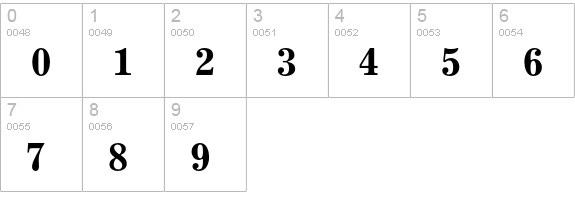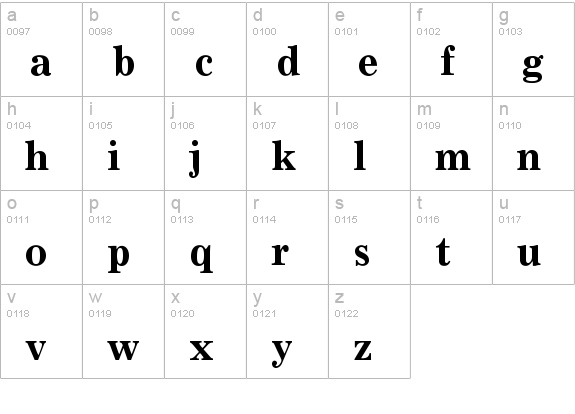
Excelsior Bold is a strong, high-contrast variant in the Excelsior typeface family \xE2\x80\x94 well suited to headlines, attention-grabbing titles, and strong calls-to-action.
Excelsior Bold font is a bold and striking typeface that exudes confidence and professionalism. Its sleek and modern design makes it perfect for a wide range of projects, from branding to marketing materials. The strong, thick lines of Excelsior Bold demand attention and create a powerful visual impact. The best part? Excelsior Bold is available for free download at FontsMarket.com. This means you can easily add this impressive font to your collection without any cost. Don't miss out on the opportunity to enhance your designs with the bold and impactful Excelsior Bold font, now easily accessible for free at FontsMarket.com.